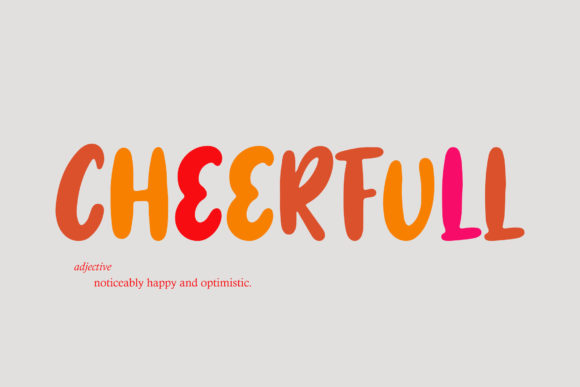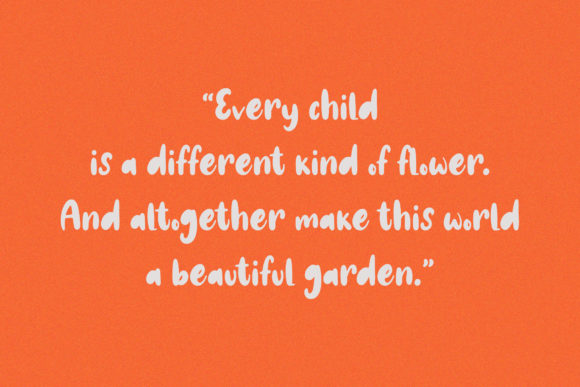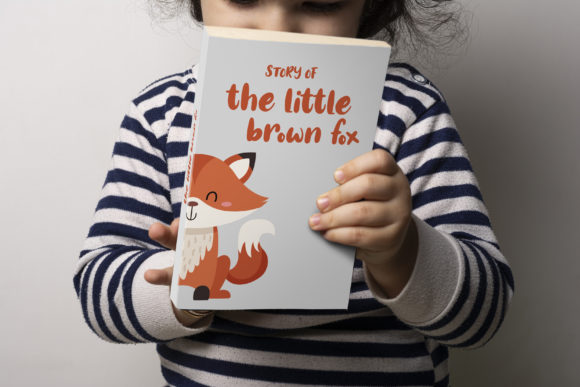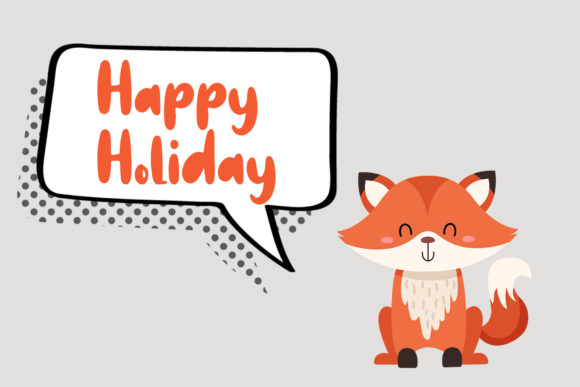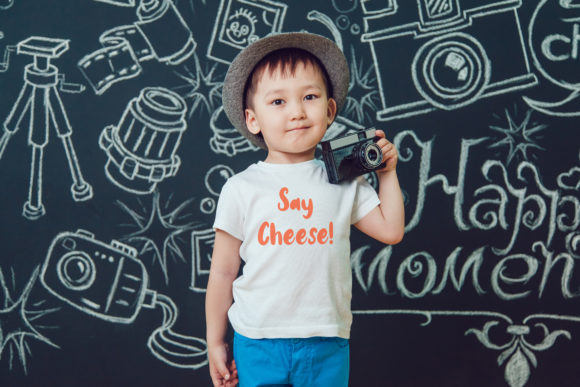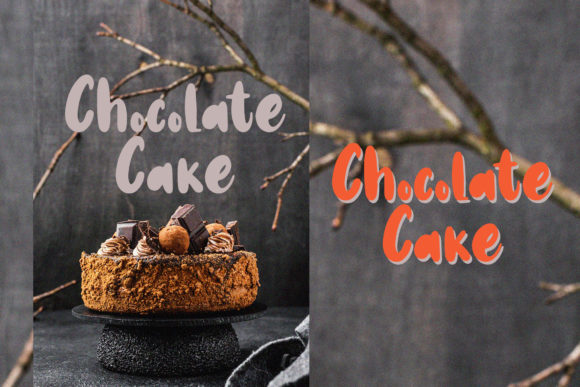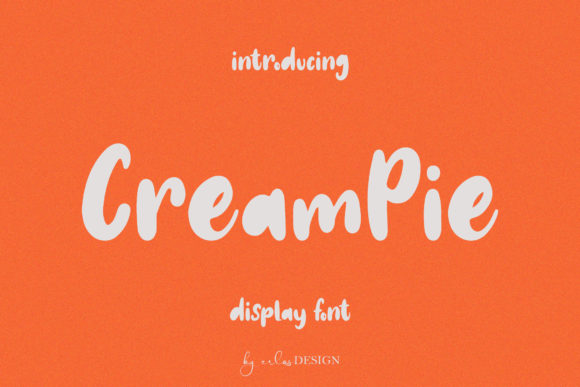
CreamPie Font: The Sweet and Friendly Handwritten Font for Your Design Needs
Are you a designer or crafter looking for a font that can add a touch of sweetness and friendliness to your designs? Look no further than CreamPie Font! This beautiful handwritten font is perfect for a wide range of design projects, from branding and packaging to scrapbooking and DIY crafts.
What is CreamPie Font?
CreamPie Font is a sweet and friendly handwritten font that is sure to capture the hearts of designers and crafters alike. Its natural and unique style makes it incredibly fitting to a large pool of designs, and the only limit is your imagination! With CreamPie Font, you can add a personal touch to your designs and make them stand out from the crowd.
Key Features of CreamPie Font
• Handwritten style: CreamPie Font has a beautiful handwritten style that is perfect for adding a personal touch to your designs.
• Sweet and friendly: The font has a sweet and friendly feel to it, making it perfect for designs that require a touch of warmth and approachability.
• Natural and unique: CreamPie Font has a natural and unique style that sets it apart from other fonts.
• Versatile: The font is incredibly versatile and can be used for a wide range of design projects.
Uses of CreamPie Font
CreamPie Font is perfect for a wide range of design projects, including:
• Branding and packaging: Use CreamPie Font to add a touch of sweetness and friendliness to your brand’s packaging and marketing materials.
• Scrapbooking and DIY crafts: This font is perfect for scrapbooking and DIY crafts, such as card making, journaling, and paper crafting.
• Signage and posters: Use CreamPie Font to create eye-catching signage and posters that are sure to grab attention.
• Digital designs: The font can also be used for digital designs, such as social media graphics, blog posts, and website headers.
Why Choose CreamPie Font?
So why choose CreamPie Font for your design needs? Here are just a few reasons:
• Unique style: CreamPie Font has a unique style that sets it apart from other fonts.
• Easy to read: The font is easy to read, making it perfect for designs that require a clear and concise message.
• Customizable: CreamPie Font can be customized to fit your design needs, making it perfect for a wide range of projects.
Tips for Using CreamPie Font
Here are a few tips for using CreamPie Font in your designs:
• Pair with other fonts: CreamPie Font pairs well with other fonts, so don’t be afraid to experiment with different combinations.
• Use for headings and titles: The font is perfect for headings and titles, and can add a touch of sweetness and friendliness to your designs.
• Experiment with colors: CreamPie Font looks great in a variety of colors, so don’t be afraid to experiment and find the perfect color for your design.
In conclusion, CreamPie Font is a sweet and friendly handwritten font that is perfect for a wide range of design projects. Its natural and unique style makes it incredibly fitting to a large pool of designs, and the only limit is your imagination! With CreamPie Font, you can add a personal touch to your designs and make them stand out from the crowd.